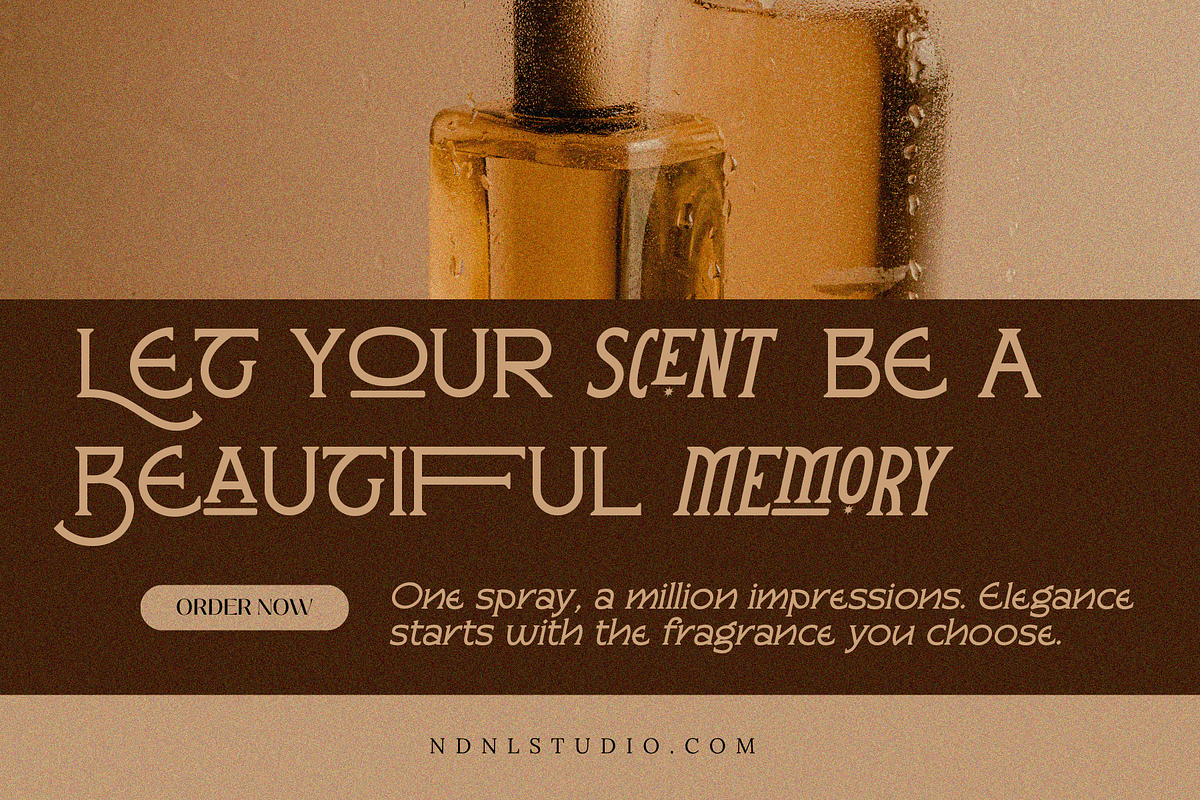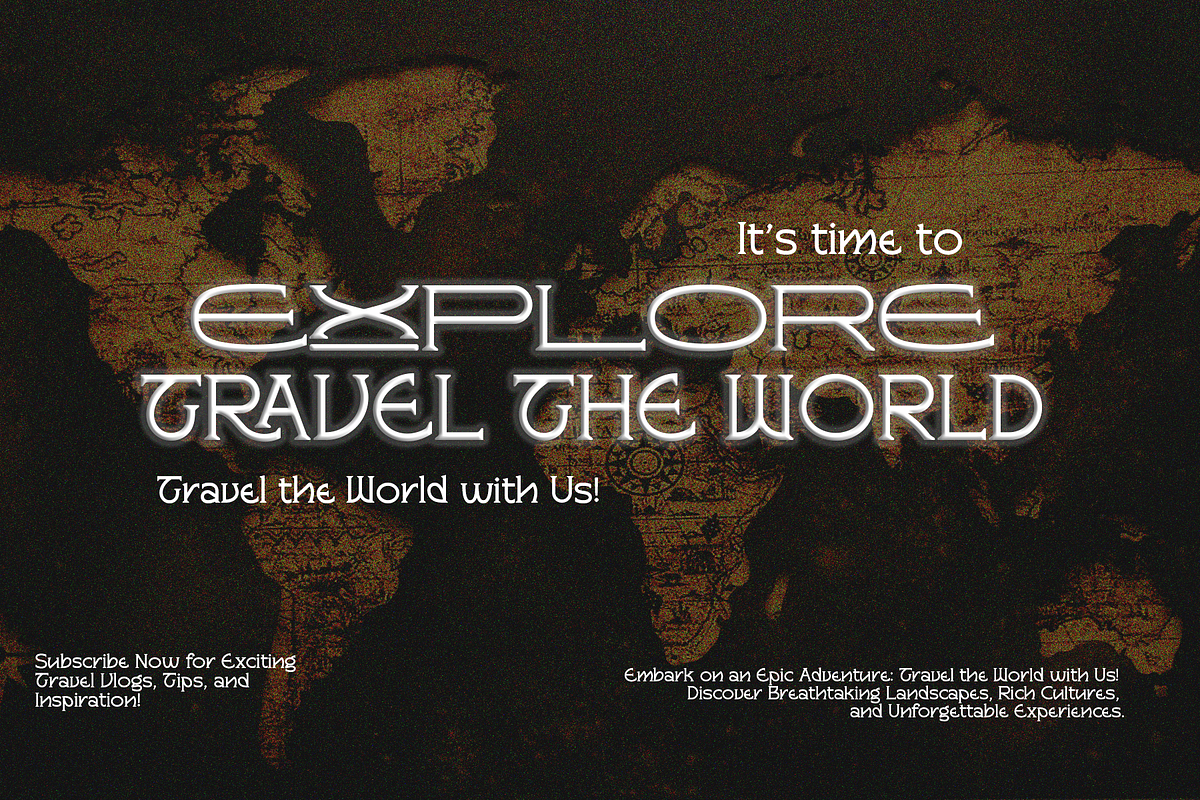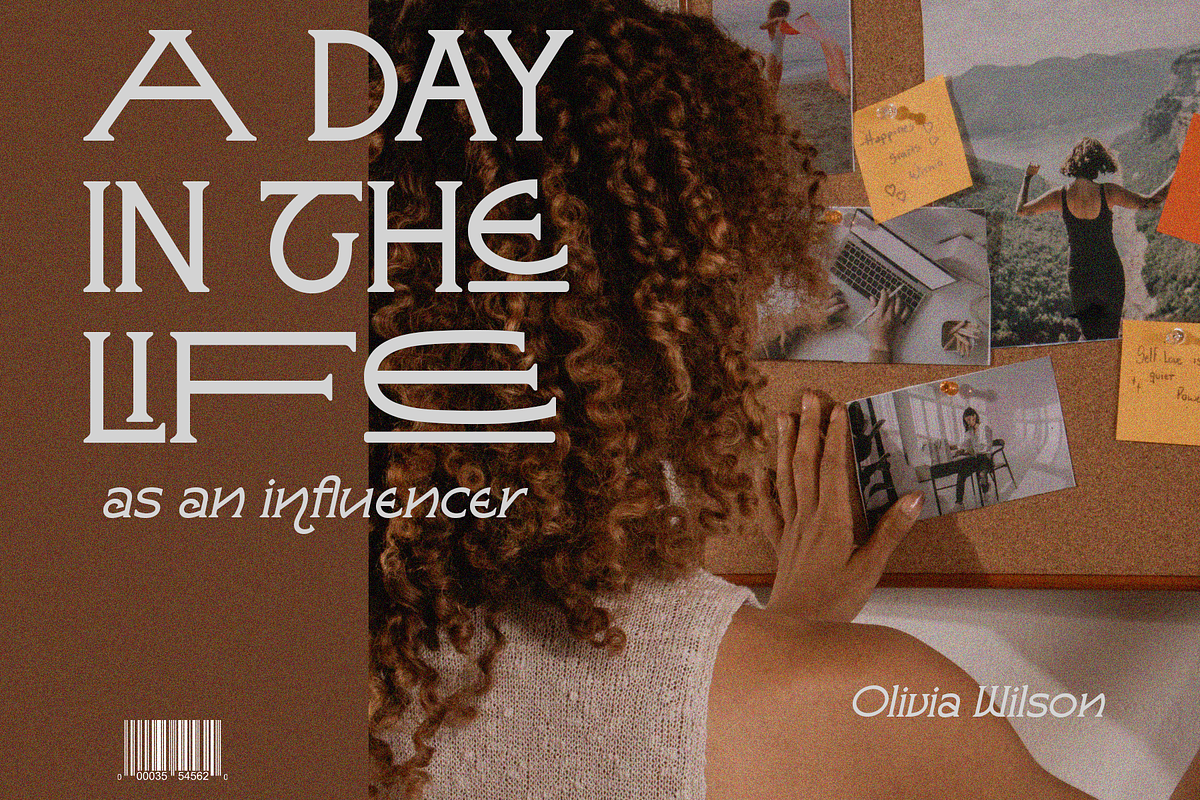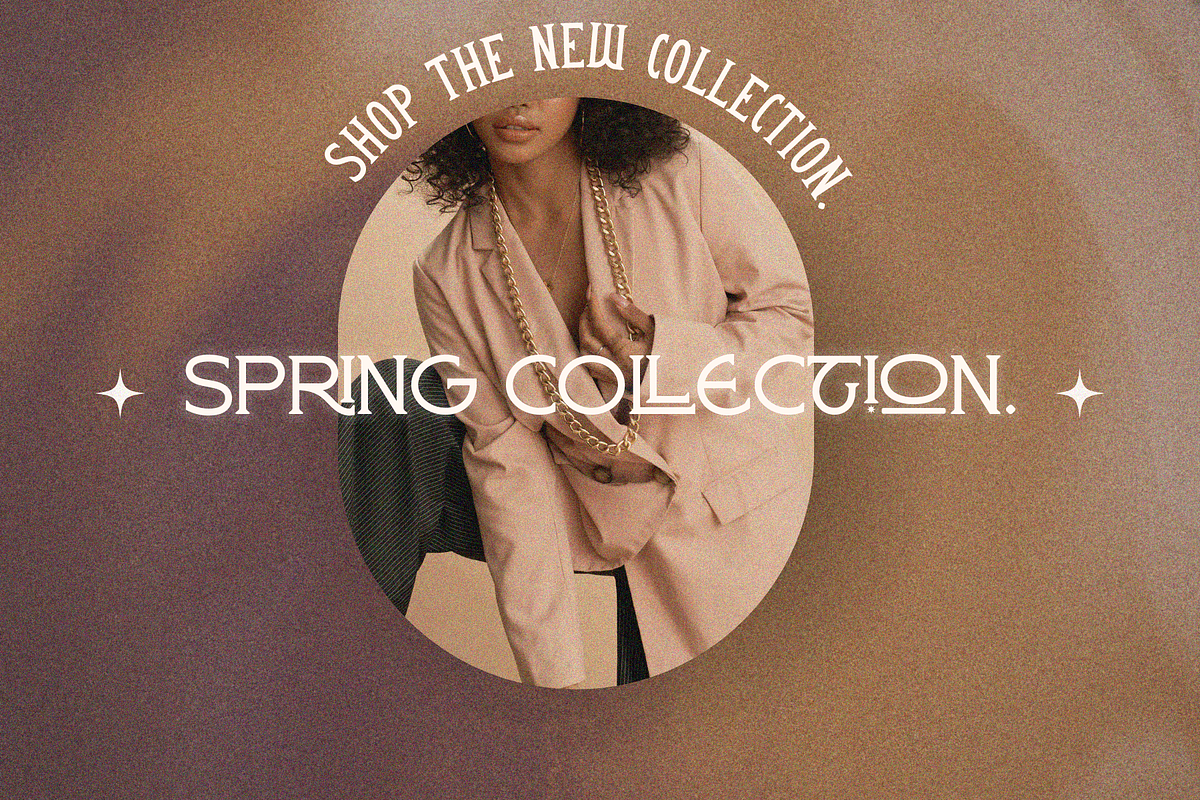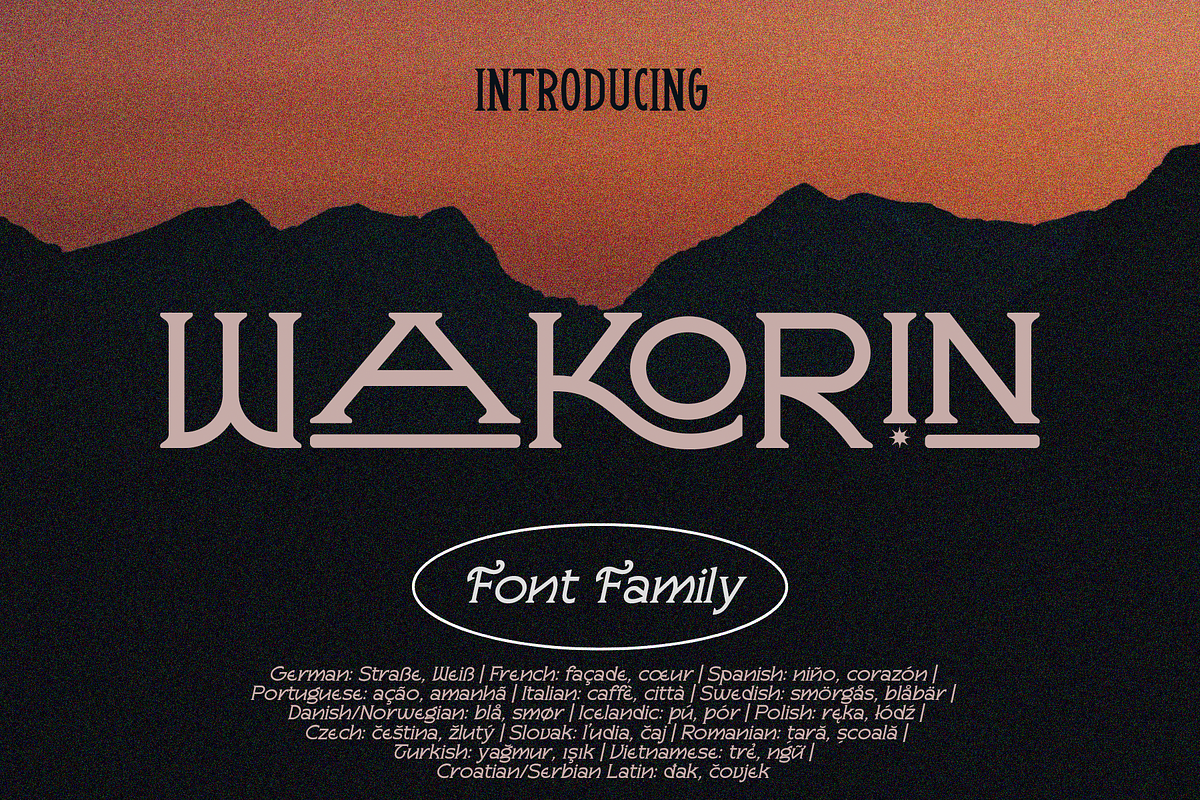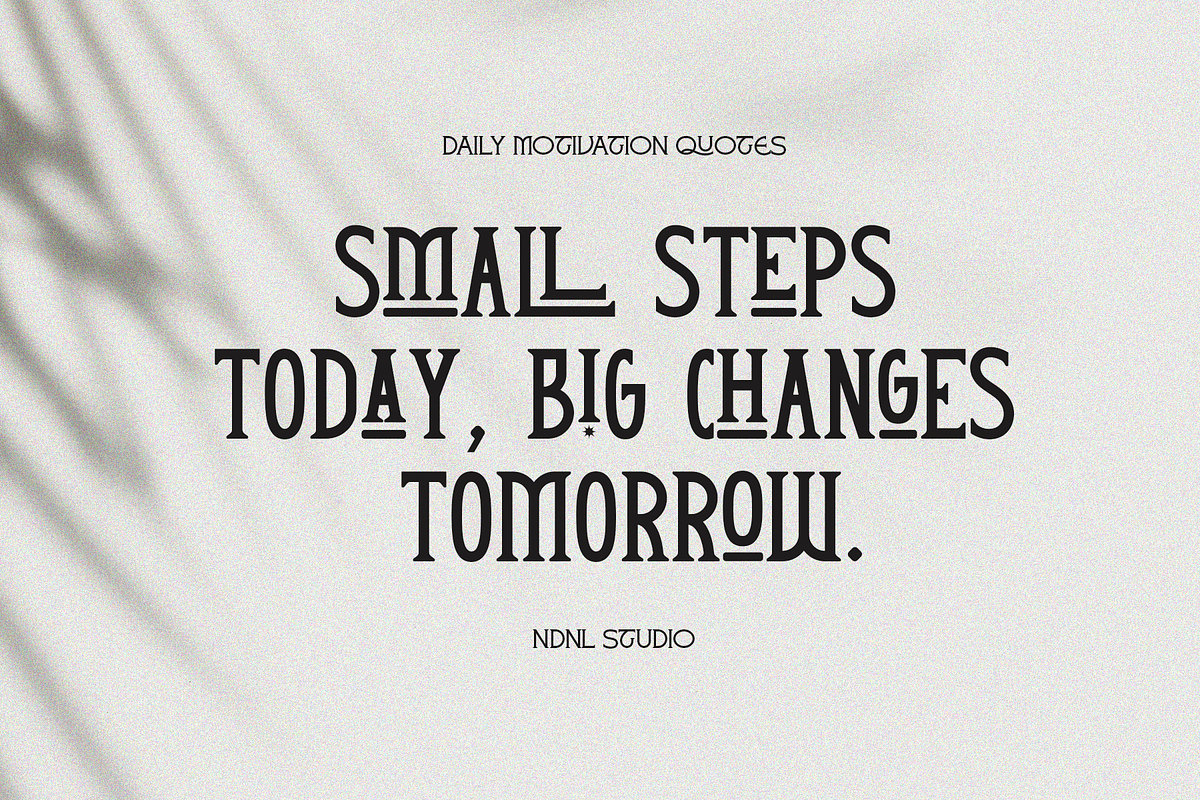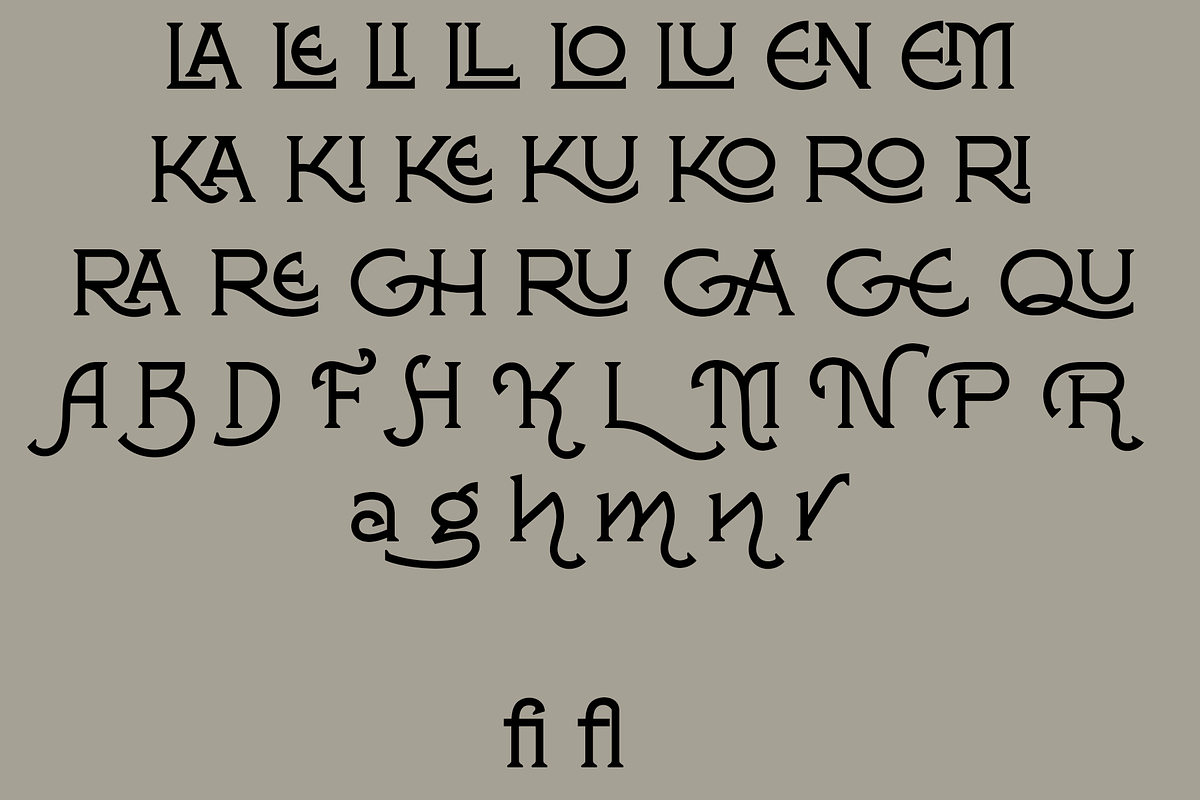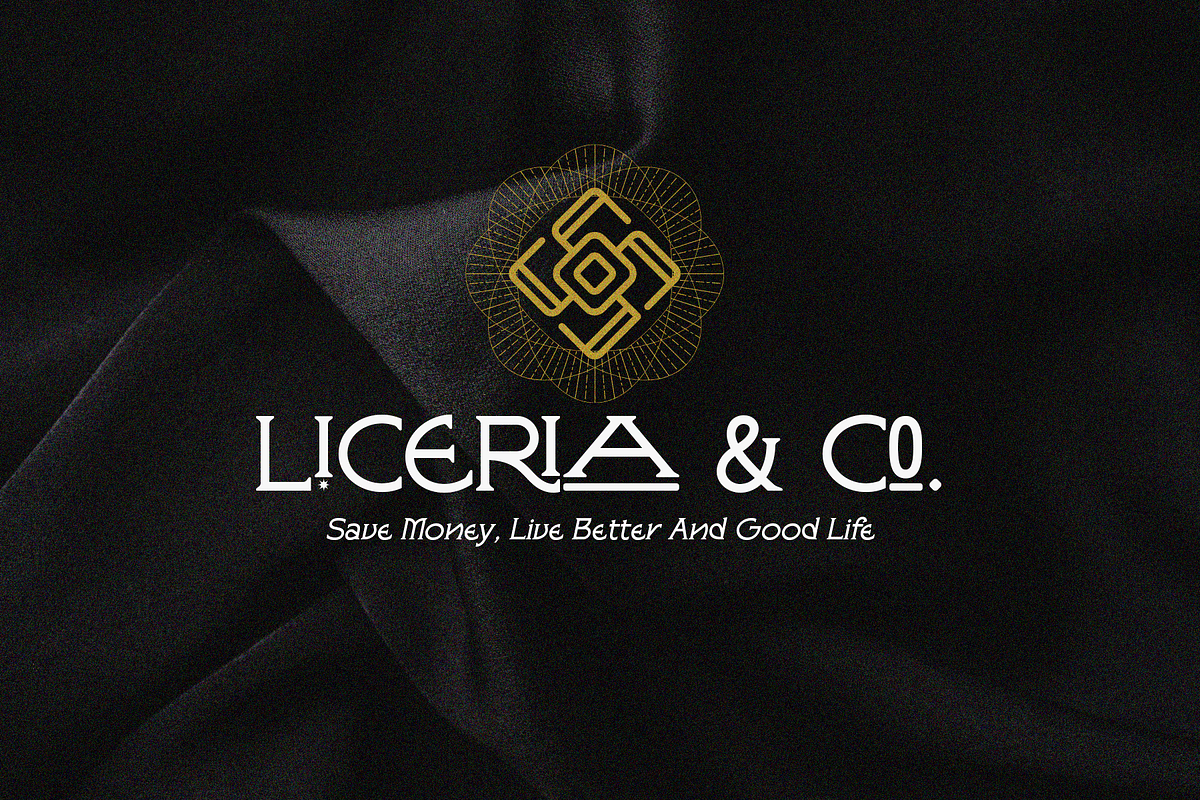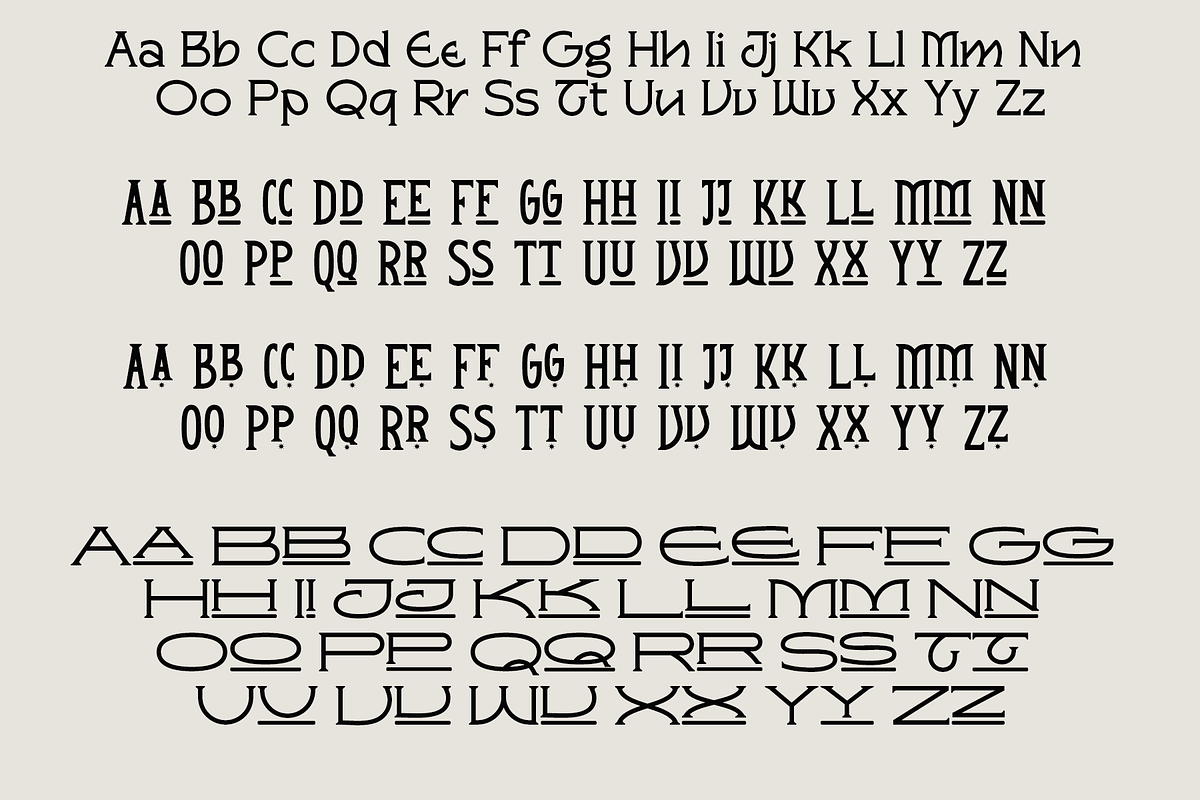
Wakorin – Serif Font Family
Wakorin is an elegant and modern font family that strikes a perfect balance between classic charm and contemporary style. With its smooth curves, clean structure, and refined details, Wakorin delivers a sense of sophistication, softness, and distinctive character.
This font is suitable for a wide range of design projects such as branding, logos, posters, book covers, packaging, and editorial layouts. Notably, Wakorin offers multilingual support, making it ideal for international projects with a consistent and professional appearance.